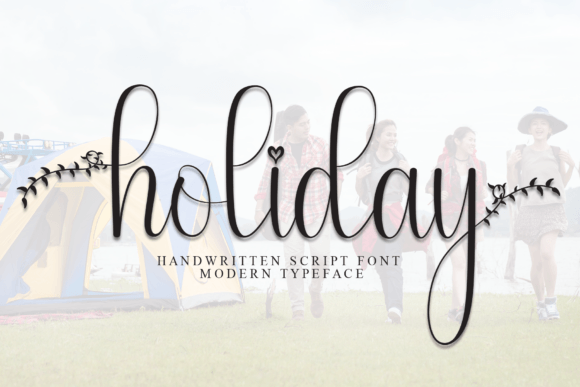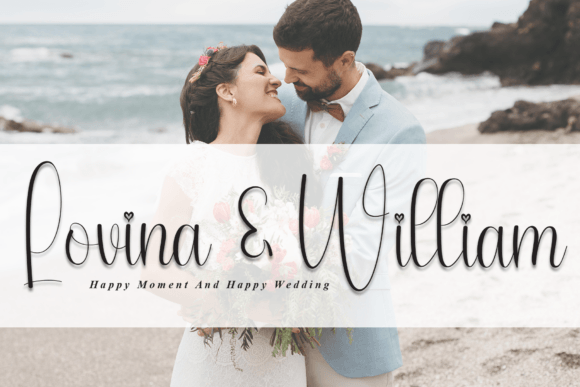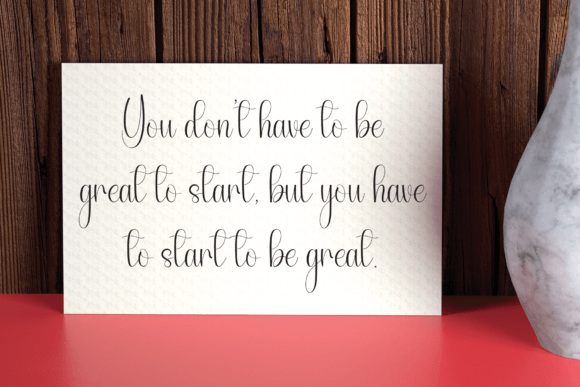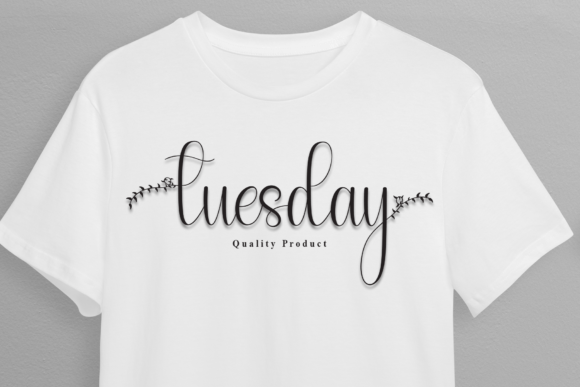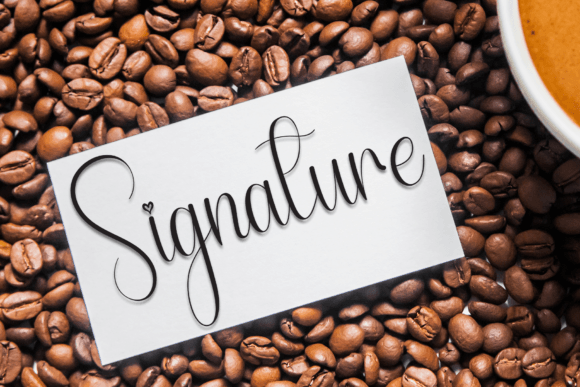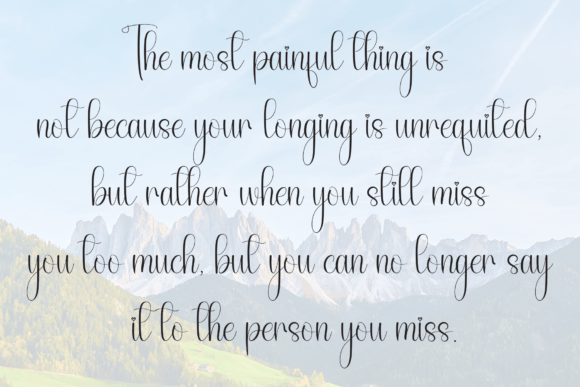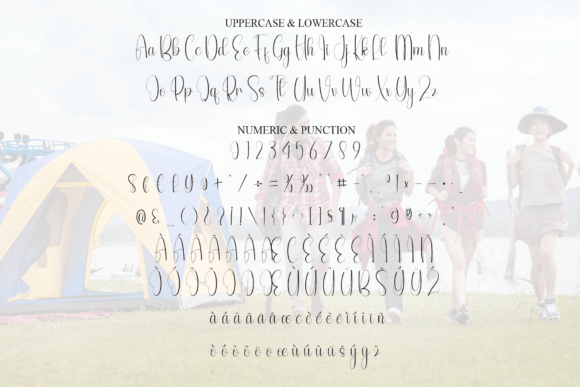
The Perfect Script for Your Holiday Design
Enter Holiday Font, a stunning handwritten script font that adds a touch of elegance and sophistication to any design. Perfect for branding, invitations, and stationery, it’s the perfect choice for designers looking to create a timeless and refined look. With its smooth curves and natural flow, Holiday Font is a valuable addition to any designer’s toolkit.
Holiday Font Key Features
- Unique Characteristics: Holiday Font features a festive and playful design, with intricate details and ornaments that evoke a sense of joy and celebration.
- Style Options: Holiday Font includes various style options, such as bold, italic, and outline, allowing designers to add depth and creativity to their designs.
Holiday Font Review
First off, I’d say the Holiday Font has some great qualities that make it perfect for festive designs. ✨ The bold and playful letterforms really capture the spirit of the season, and the overall aesthetic is quite eye-catching. The font is also incredibly versatile, and it can be used in a wide range of applications, from holiday greeting cards to social media graphics.
One of the standout features of the Holiday Font is its unique and whimsical feel. ✨ The font’s creative flourishes and ornaments add a touch of magic to any design, and the attention to detail is impressive. The font also comes with a range of styles and weights, making it easy to customize and adapt to different design needs.
However, there are a few limitations to consider. ⚠️ The font may not be suitable for more serious or formal designs, as its playful tone may come across as too lighthearted. Additionally, some users may find the font’s ornate details to be overwhelming or difficult to read at small sizes.
Overall, I think the Holiday Font is a great choice for designers looking to add some festive flair to their work. While it may not be the best fit for every design project, it’s definitely worth considering for holiday-themed designs and other applications where a playful, whimsical feel is desired.
- Unique and whimsical feel
- Highly versatile and adaptable
- Comes with a range of styles and weights
- May not be suitable for serious or formal designs
- Ornate details may be overwhelming at small sizes
Practical Application Guide for Holiday Font
Tips for Getting the Most Out of Holiday Font
Use the Holiday Font to create a festive atmosphere in your designs.
Combine the Holiday Font with other festive elements, such as holly leaves or snowflakes, to create a cohesive design.
Holiday Font is perfect for:
Christmas cards and invitations
New Year’s Eve party decorations
Thanksgiving and Halloween marketing materials
Summer and winter holiday-themed social media posts